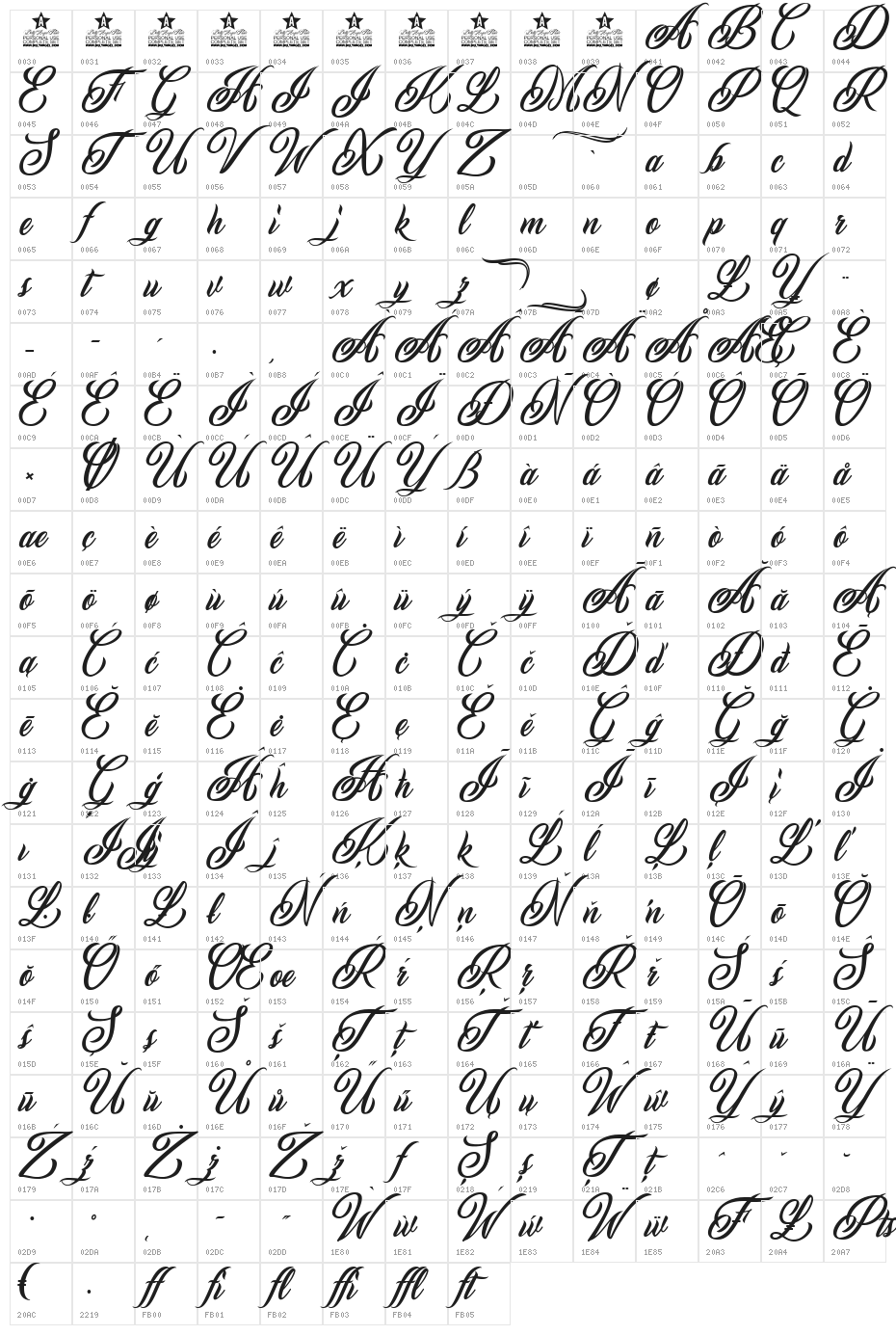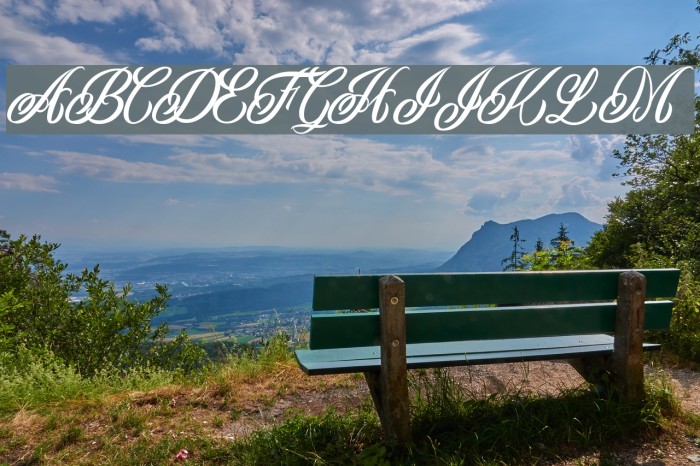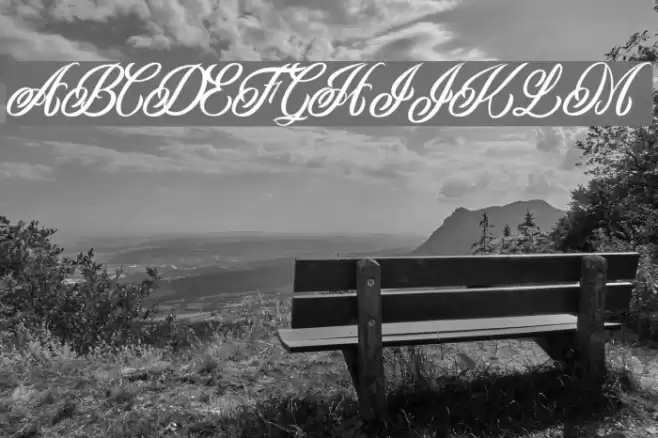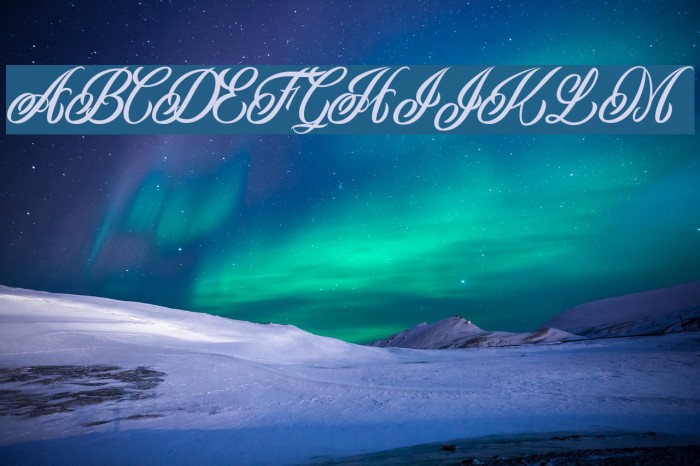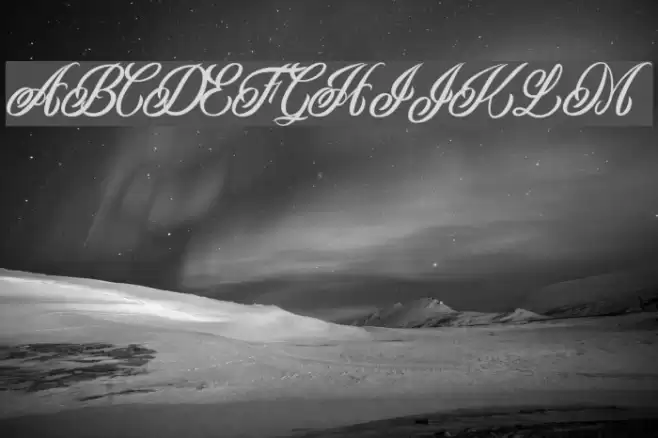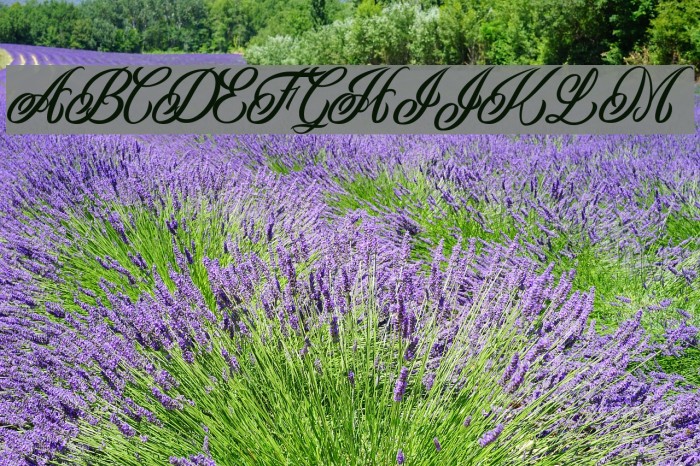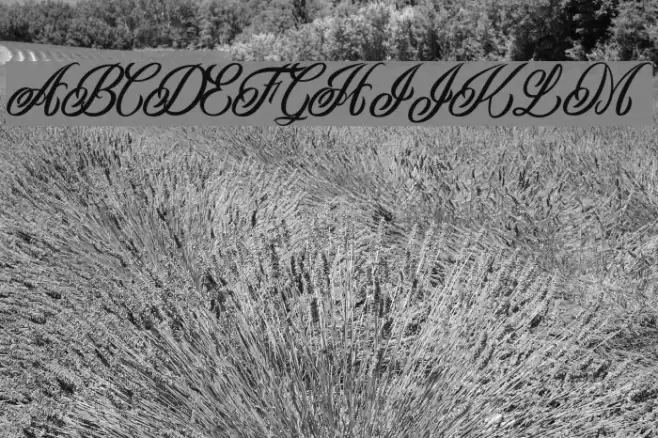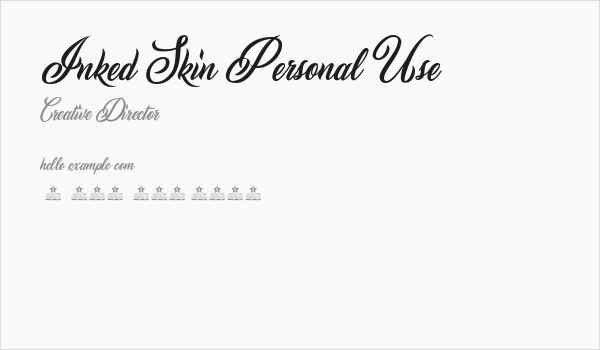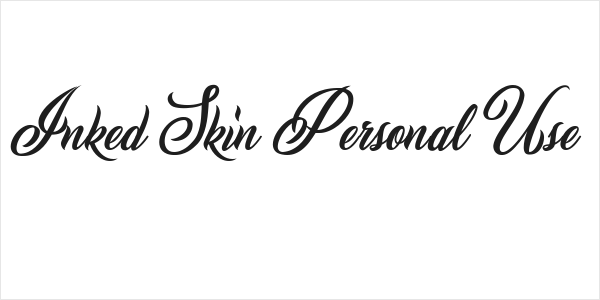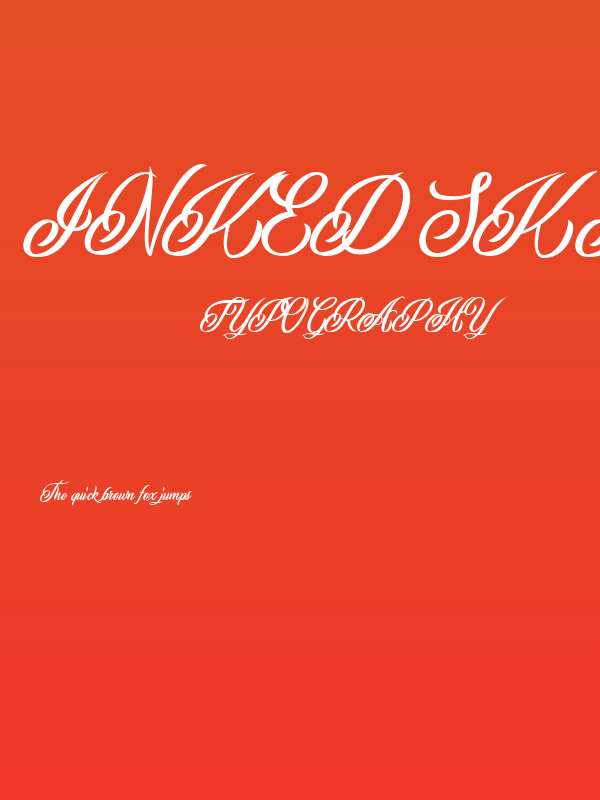
Inked Skin Personal Use Font
Inked Skin Personal Use Description
This font features an elegant, flowing script style with intricate, swirling lines that give it a sophisticated and artistic appearance. The uppercase letters are adorned with elaborate flourishes, while the lowercase letters maintain a smooth, connected flow. The overall design is reminiscent of calligraphy, with a modern twist that adds a touch of flair. The characters are well-balanced, with a consistent stroke width that enhances readability while maintaining its decorative nature. This font is ideal for projects that require a touch of elegance and creativity.